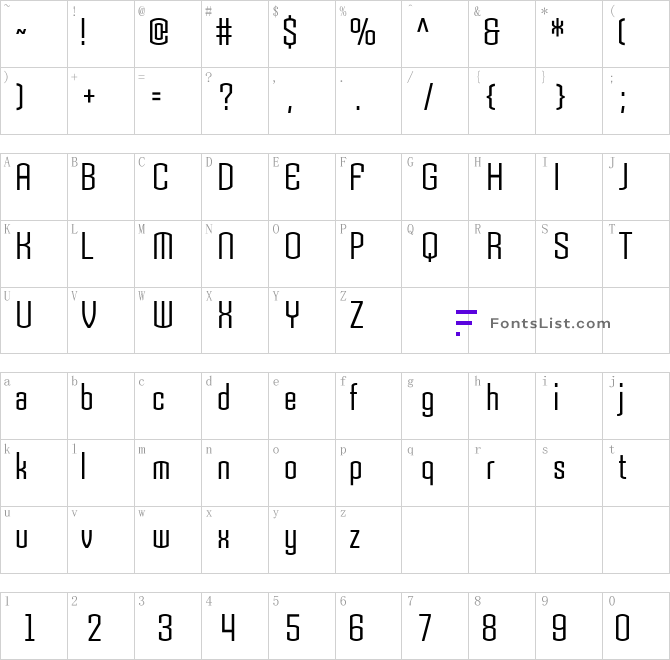
- Font Name:Armada
Armada-RegularCondensed.ttf is a very beautiful artistic font, Armada-RegularCondensed.ttf is widely used in the design and printing of various books and pictures,Armada-RegularCondensed.ttf has a strong visual impact,Armada-RegularCondensed.ttf is a commonly used font in newspapers, magazines and books, and is used in posters, e-commerce Poster design, store design, logo design, font design and other fields.Armada-RegularCondensed.